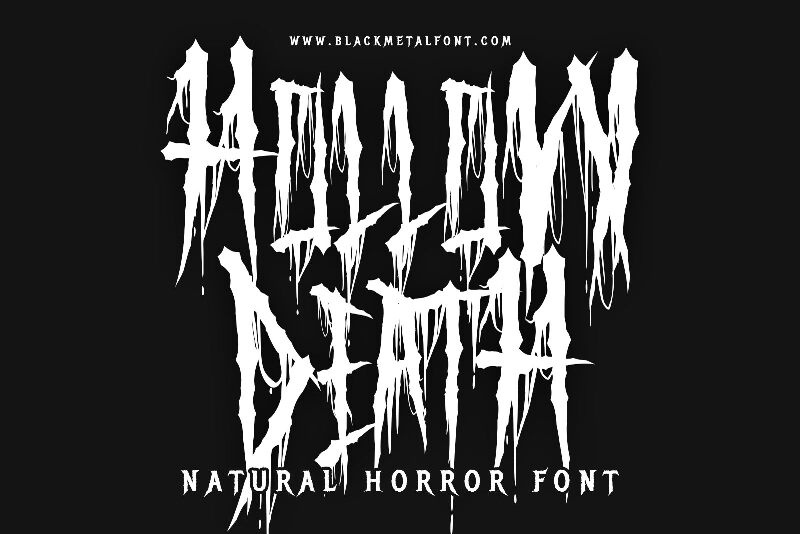
Hollow Death font, by Blackmetalfont, is a display typeface with a scary style and condensed form. Featuring a light design with an unsettling dripping effect, it carries gothic influences and evokes eerie moods. It's perfect for horror themes, providing an atmosphere of decaying fear.
Hollow Death is often used in horror movie titles, Halloween event posters, and metal band logos. Its distressing texture extends into video game titles within the horror genre. Additionally suitable for themed escape room signage and book covers of thrilling novels, this free font will easily upgrade magazine headlines or print-outs prepared by fanatic fans within the horror community.
Hollow Death
Blackmetalfont
Muhammad Sirojuddin